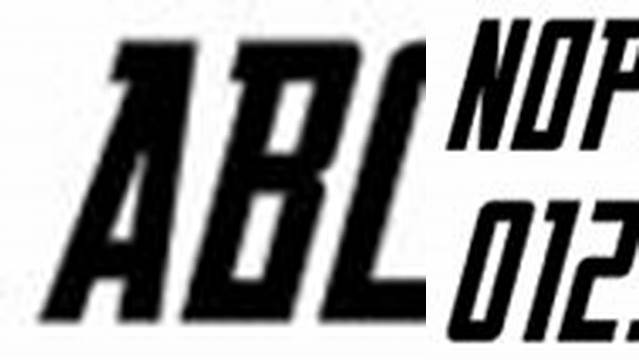
Italic Font: Free Downloads & Awesome Text Style
Hey guys, are you ready to level up your text game? Today, we're diving deep into the awesome world of Stand By 4 Action, focusing on how you can use italic font to make your words pop and grab attention. And the best part? I'll guide you on where to get it for free! Let's get started!
Why Italic Font Matters: Spice Up Your Style
Alright, let's be real. In a world overloaded with information, you need to make your text stand out. That's where italic font swoops in like a superhero. It's not just about making your words look fancy; it's a powerful tool for emphasizing key points, adding a touch of personality, and generally making your content more engaging. Think about it – when you're reading, what immediately catches your eye? It's often the italicized words, the bold headings, and anything that breaks the monotony of plain text. Using italic font helps you do exactly that! By using italic font, you can easily direct the reader's attention to the most crucial parts of your message. It's like giving your words a little nudge and saying, "Hey, pay attention to this!" It also allows you to convey a subtle emotional tone. You can use it for emphasis, to create a sense of urgency, or to add a touch of humor to your message. The italicized words can really make your content more dynamic and interesting, leading your audience to read your text more frequently. It's also a fantastic tool for making your content more readable. When you properly use italics, you're actually improving the overall flow of your text, allowing your readers to grasp the important pieces of information.
Furthermore, the use of italic font can greatly enhance the stylistic versatility of your writing. Whether you're crafting a blog post, a social media update, or even a formal document, incorporating italicized words can add layers of depth and refinement. It allows you to break away from the plain format, helping you to express your ideas in new and exciting ways. The different styles you can achieve with italicized words will help you create a unique brand voice that is truly yours. You can also use italics to highlight specific examples or references within your content. By italicizing these elements, you can clearly distinguish them from the rest of your text, providing clarity and organization. So, if you're looking to elevate your writing and make a lasting impression, don't underestimate the power of italic font! It's an easy, effective way to make your words shine and capture your audience's interest.
Consider how italic font can totally change the feel of your text. Imagine you're writing about a particularly interesting quote. By italicizing the words, you not only make them stand out visually but also give them an added layer of importance. Or maybe you want to add a touch of sarcasm or irony? Italics can do the trick! It's like adding a wink to your words, conveying a sense of playfulness that plain text just can't achieve. When it comes to marketing and content creation, it’s your secret weapon. It can be used to create catchy headlines, emphasize key selling points, and encourage your audience to take action. It also helps in making content more memorable. Italics, alongside other formatting options, can make your writing pop, and it can also help you control your audience's attention. It's not just about aesthetics; it's about communication. It’s about making a connection, sparking curiosity, and ultimately, making your writing more effective. The power of italic font is truly amazing, isn't it?
Beyond the Basics: Creative Uses of Italic Font
Alright, let's talk about some creative ways to use italic font to make your text shine:
- Emphasizing Quotes: Italic font is perfect for quoting someone else's words. It sets the quote apart from the rest of your text and makes it stand out. You can also use it to highlight key phrases within the quote.
Final Thoughts: Unleash the Power of Italic Font
So, there you have it, folks! Everything you need to know about italic font and how to get it for free. From understanding its power to finding free fonts and using it creatively, you're now equipped to take your text to the next level. Go out there and start experimenting! With a little practice, you'll be creating content that not only looks great but also grabs attention and resonates with your audience. Don't forget to have fun while doing it! Embrace the power of italics and transform your words into something truly special. Now go forth and make some awesome content!